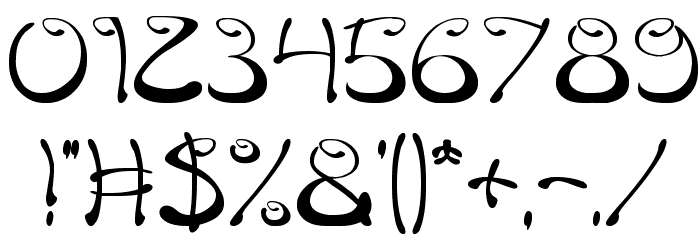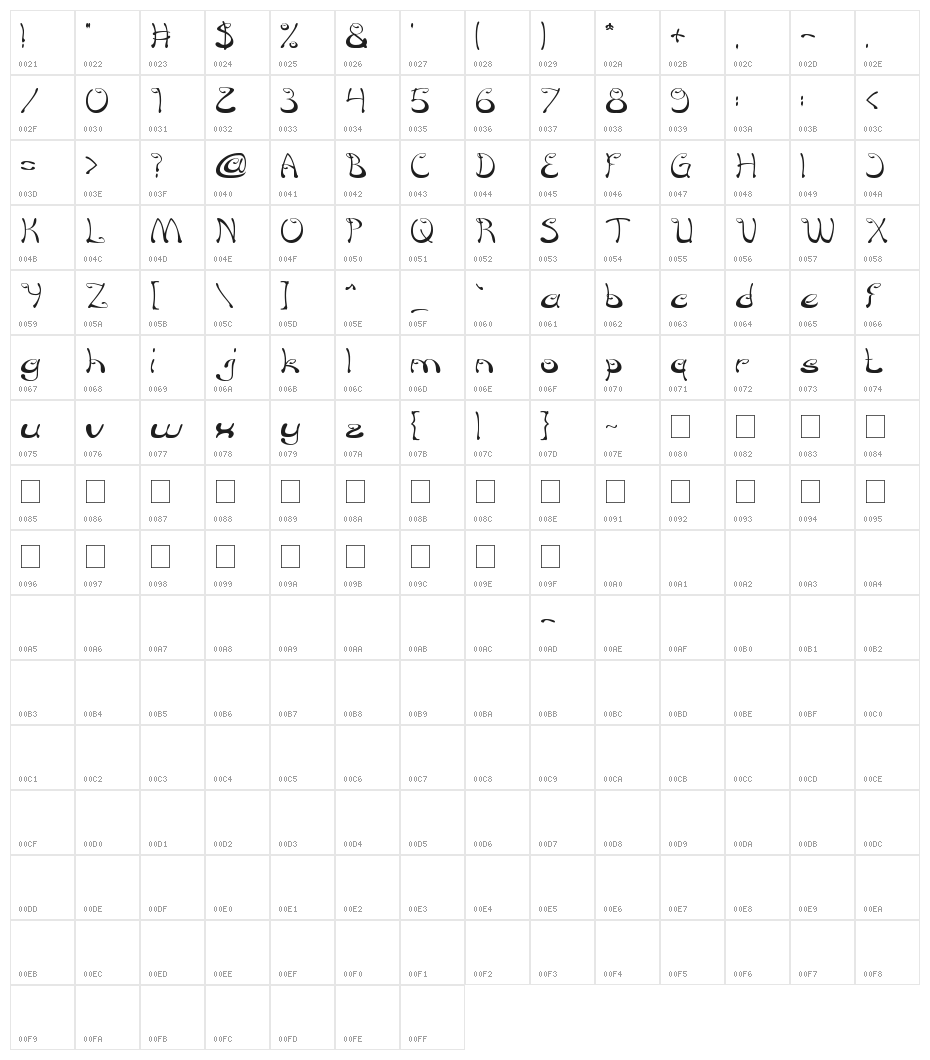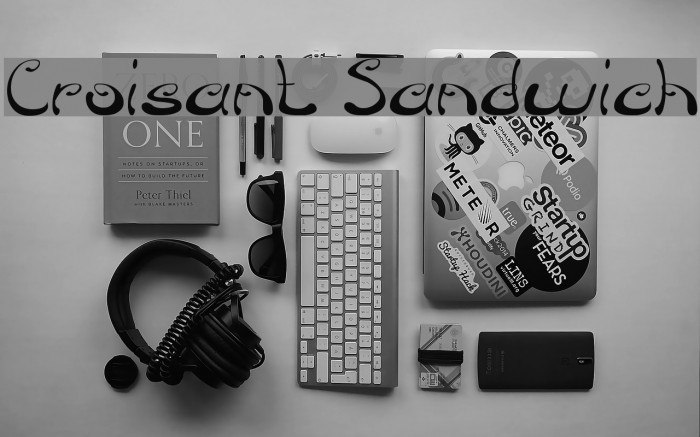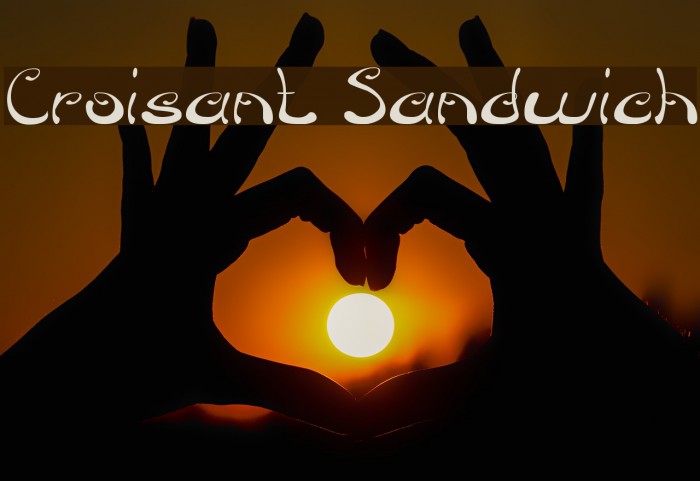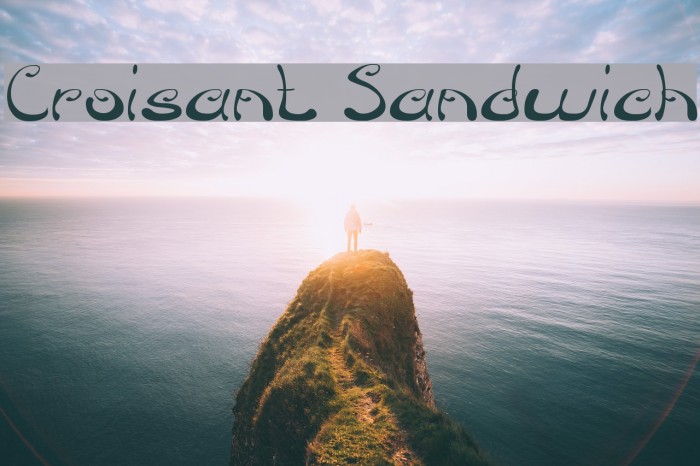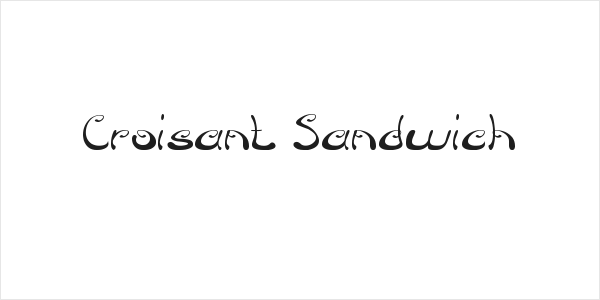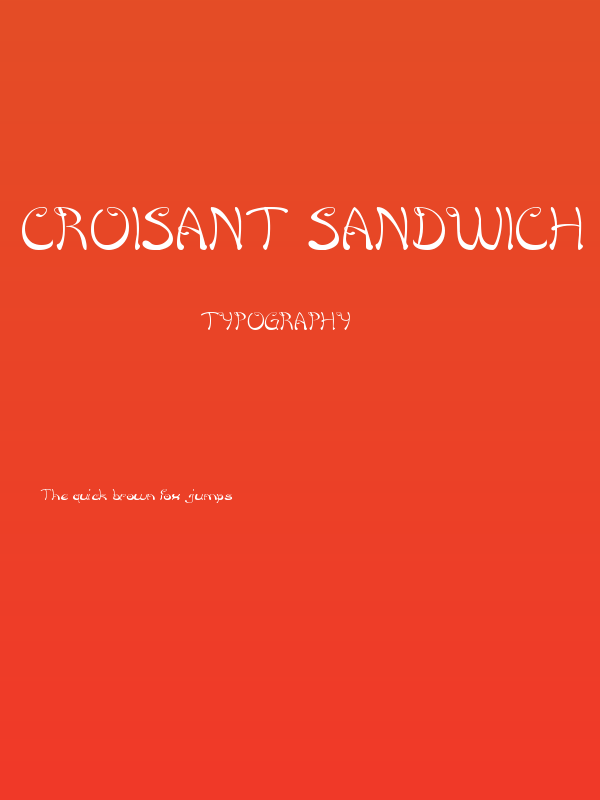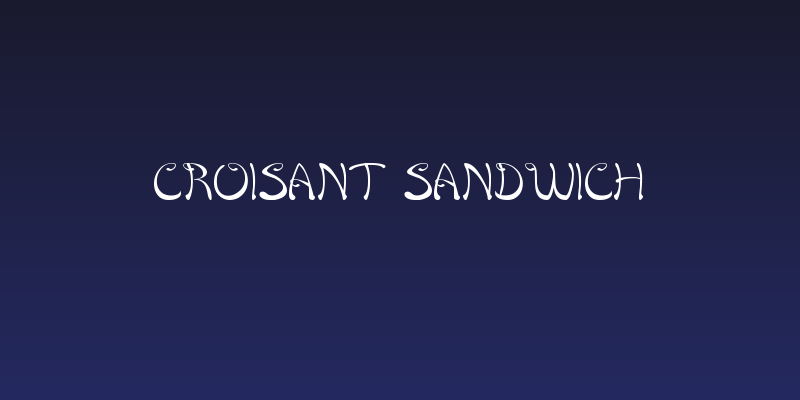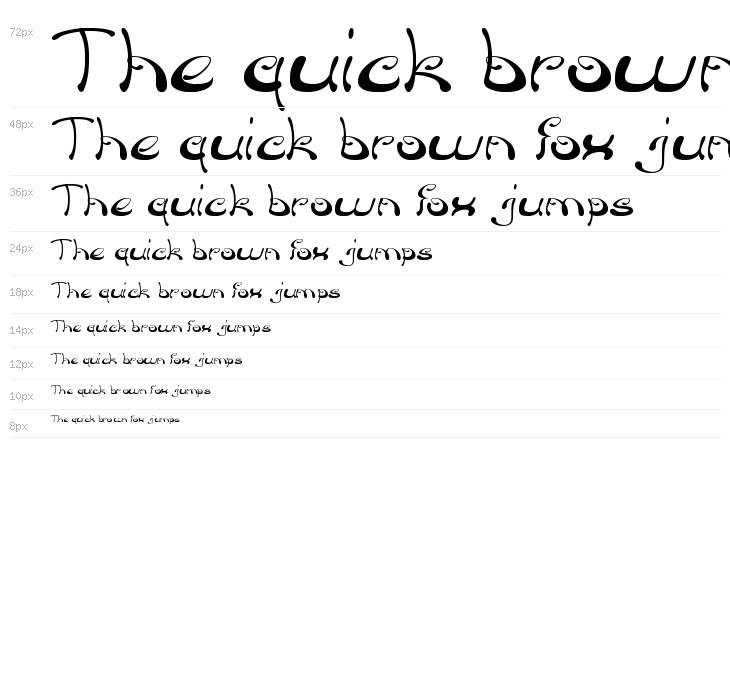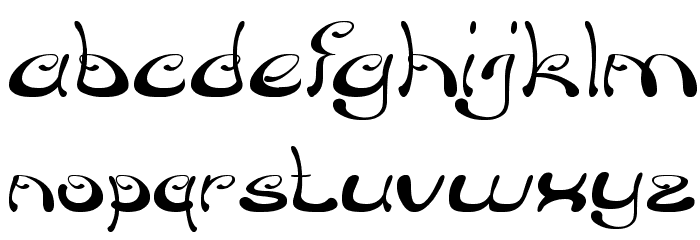
Croisant Sandwich Font
Croisant Sandwich Description
This font exhibits a playful and whimsical design, characterized by its curvy and flowing letterforms. The strokes are uneven, with varying thickness that adds a dynamic and lively feel. Each character has a unique flair, with some incorporating loops and swirls that enhance its decorative nature. The font maintains a consistent style across uppercase, lowercase, numbers, and special characters, making it versatile for creative projects. Its artistic and unconventional appearance makes it stand out, ideal for designs that require a touch of fun and creativity.